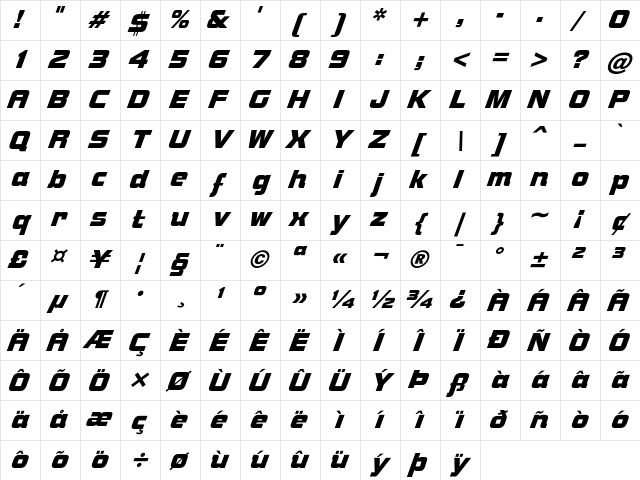
SuperMother Plain
SuperMother Family
Design Context for SuperMother
SuperMother is a composed and adaptable typeface that performs quietly and consistently across a wide range of design contexts.